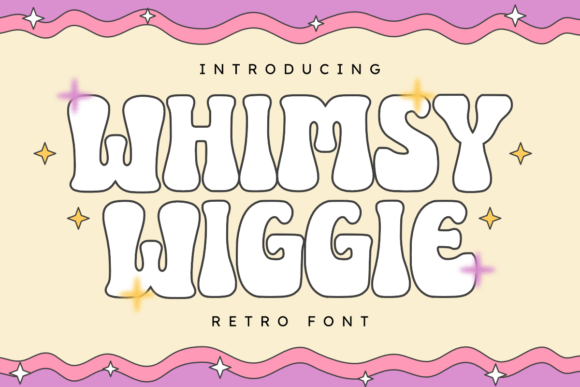
Adenman Posted Friday at 05:09 PM Share Posted Friday at 05:09 PM Whimsy Wiggle is a playful and retro font with wavy edges and a whimsical feel, reminiscent of vintage 70s designs. Perfect for creative and fun projects like music festival posters, retro-themed advertisements, and cheerful event promotions. Compatibility: windows & apple/mac & linux Giveaway Link –> https://www.creativefabrica.com/product/whimsy-wiggle/ aum, MrZeb and vhick 1 2 Quote Link to comment Share on other sites More sharing options...